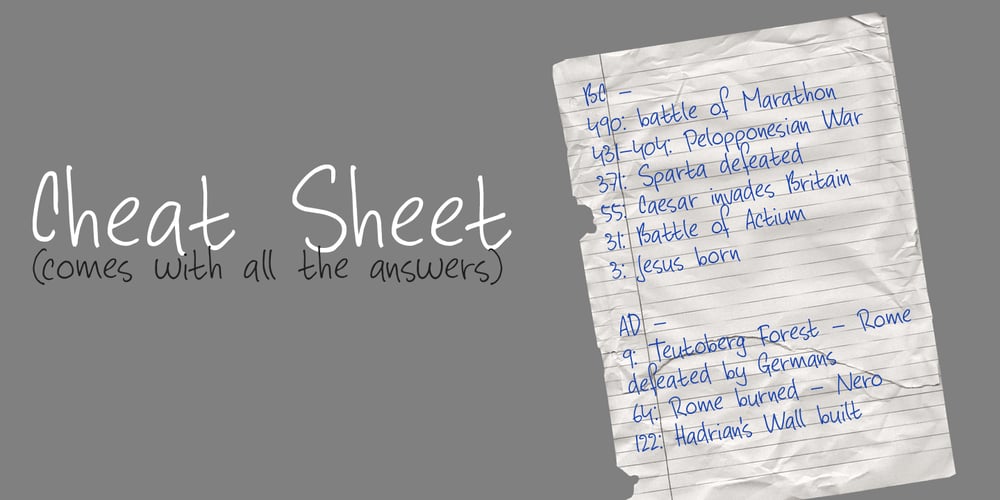
Cheat Sheet Font Family was designed by David Kerkhoff and published by Hanoded. Cheat Sheet contains 1 styles and family package options. Cheat Sheet is a handwritten typeface that looks like, well, handwriting. It is loose, legible and useful and comes with extensive language support. It goes without saying that I have never used a cheat sheet when I was in school… (ahum)…